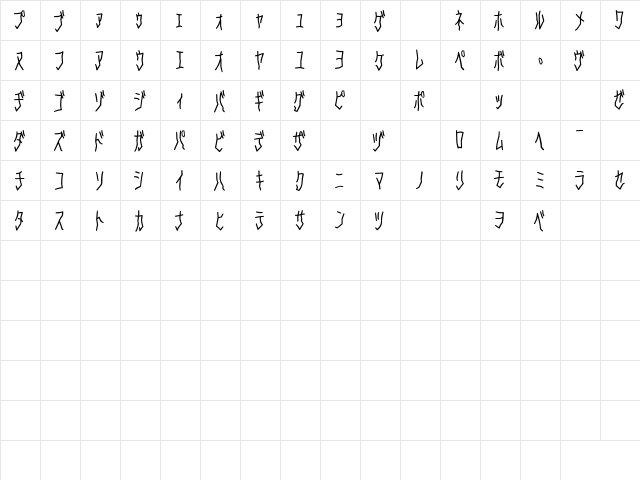
D3 Skullism Katakana Regular Font Preview
D3 Skullism Katakana Regular
Design Context for D3 Skullism Katakana Typeface
D3 Skullism Katakana is a composed and adaptable typeface that performs quietly and consistently across a wide range of design contexts.